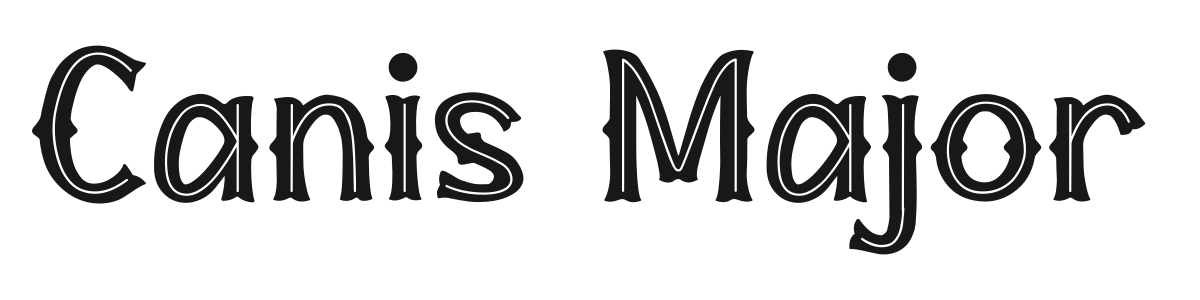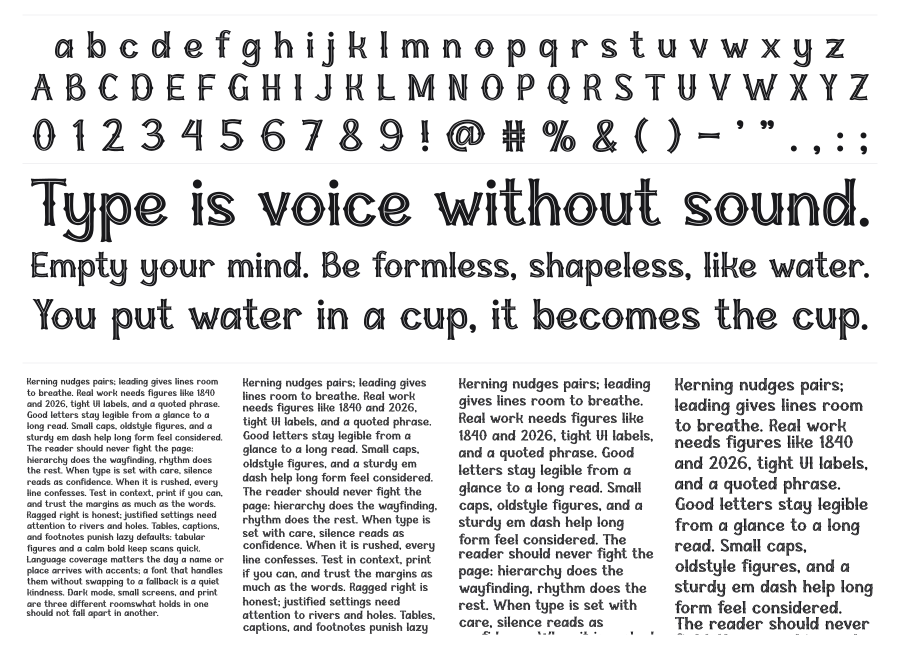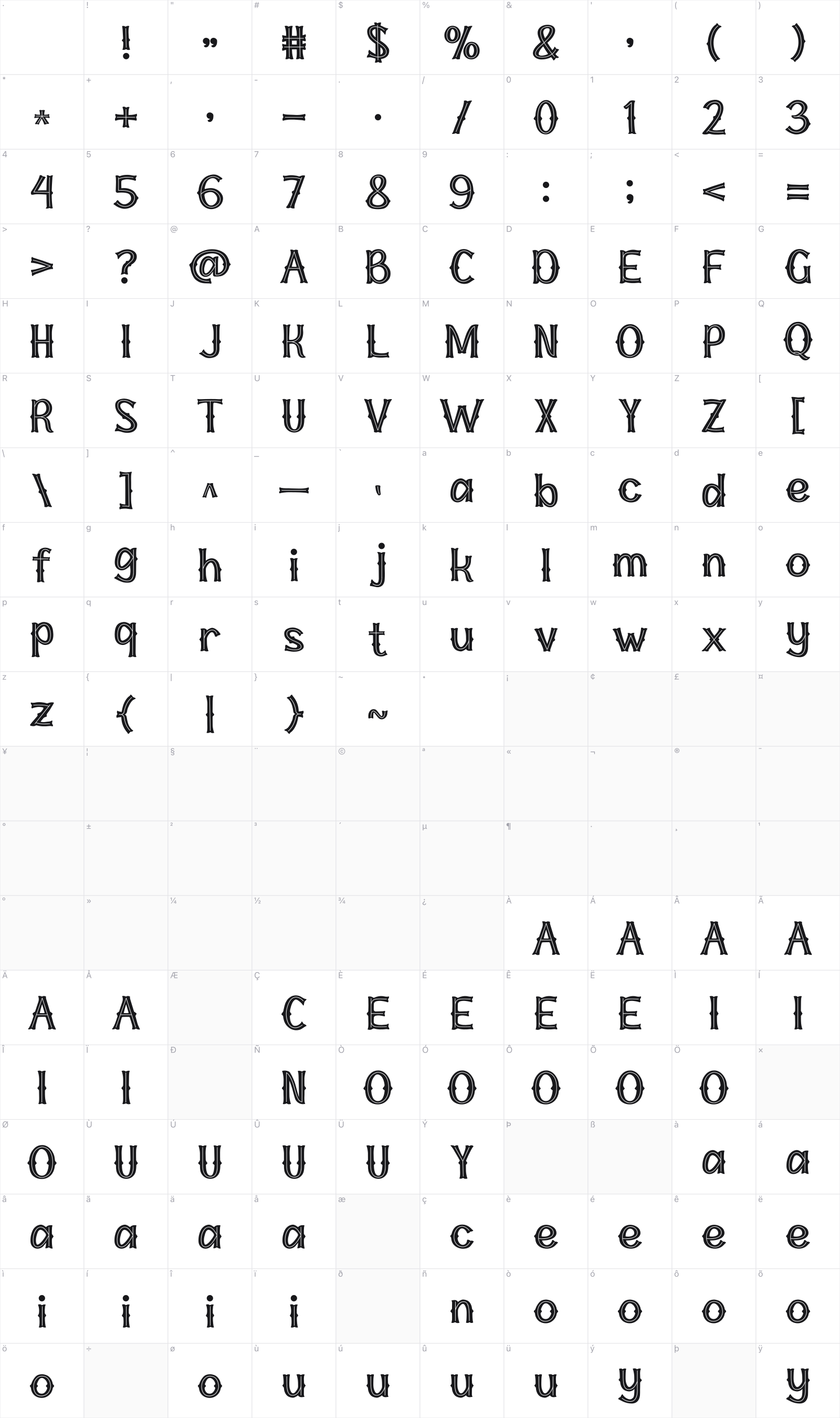
Canis Major
by Idebareng
Canis Major is a bold display serif with a built-in inline outline effect that gives each character a layered, dimensional look. The slightly irregular, hand-drawn quality of the construction adds warmth and personality, sitting somewhere between Victorian woodtype and contemporary artisan lettering. It works best large, where the double-wall stroke detail can be appreciated.